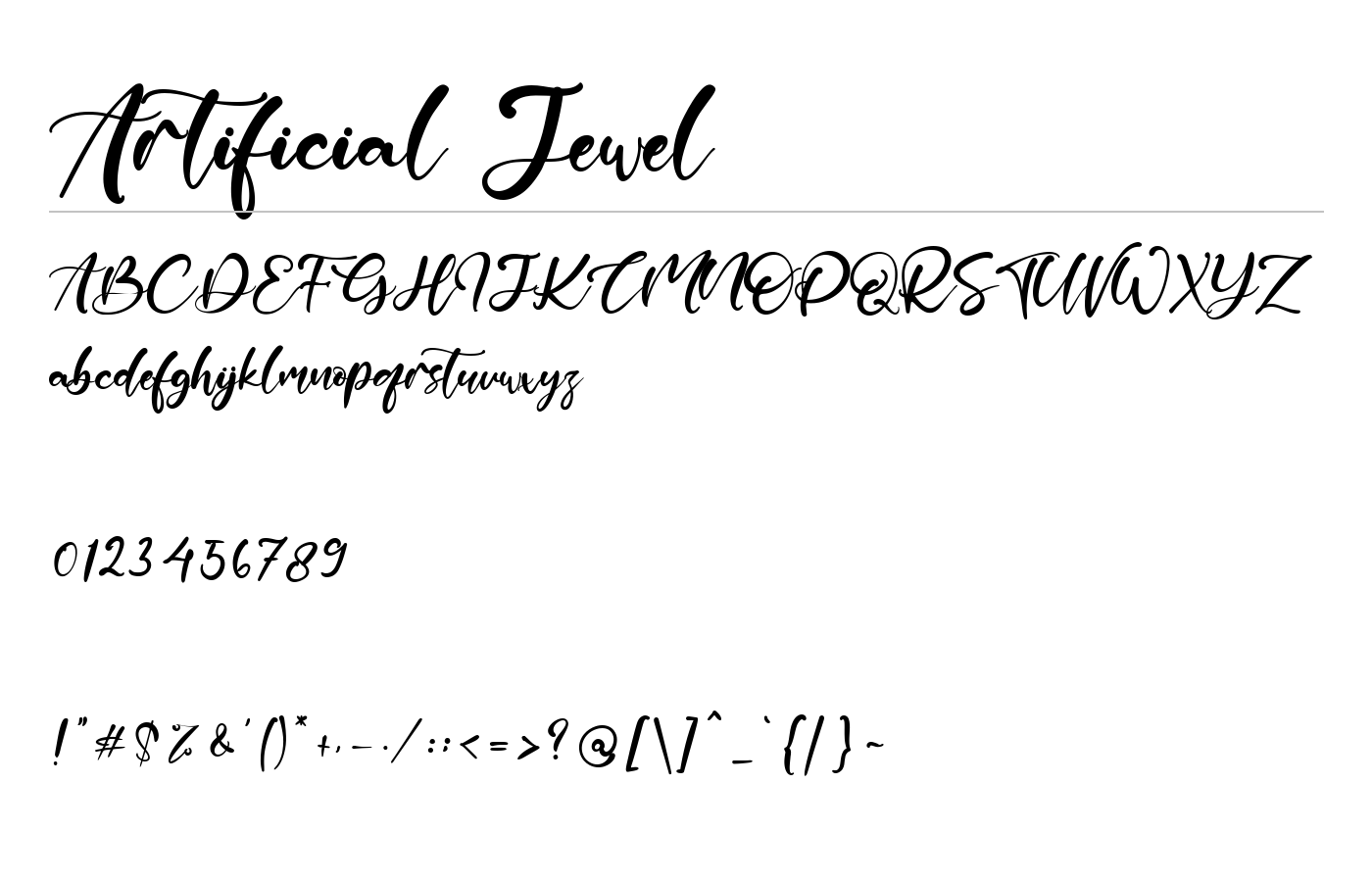
Artificial Jewel is a lively and elegant script font with a flowing, hand-lettered style that feels both modern and charming. Its smooth, varied strokes and distinctive curls add a playful yet sophisticated personality, making it ideal for invitations, branding, and creative projects that seek a personal, artistic touch. This font works beautifully in headlines and decorative text where a stylish, expressive flair is desired.
Artificial Jewel Font
About Artificial Jewel Font